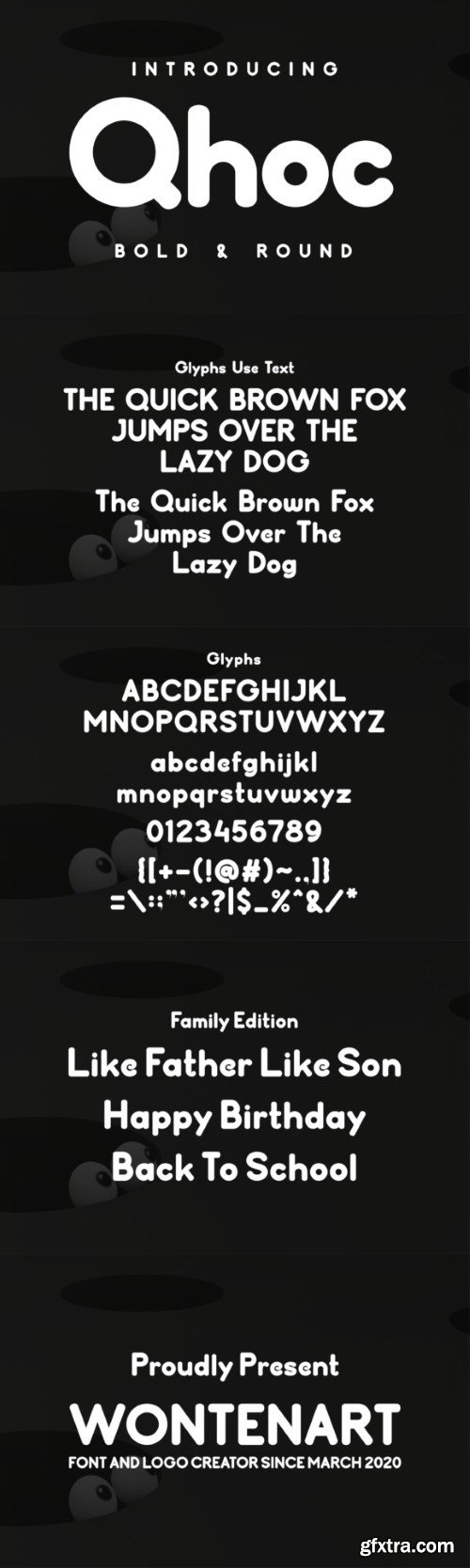
霍克字体
Qhoc is an elegant and modern rounded sans serif font. This minimalist and clean vibe can easily apply to your favorite designs such as book covers, magazines, social media posts, invitations, and so much more!